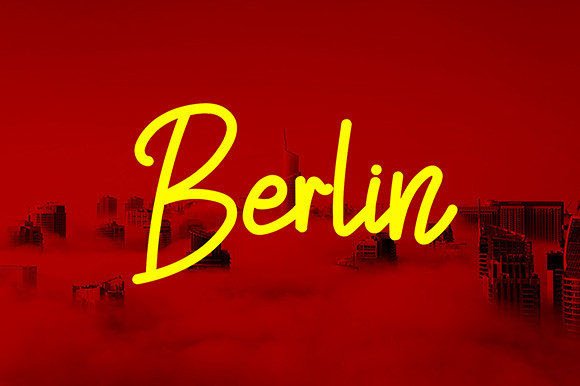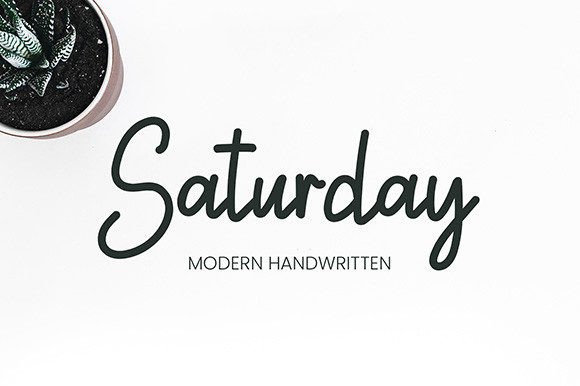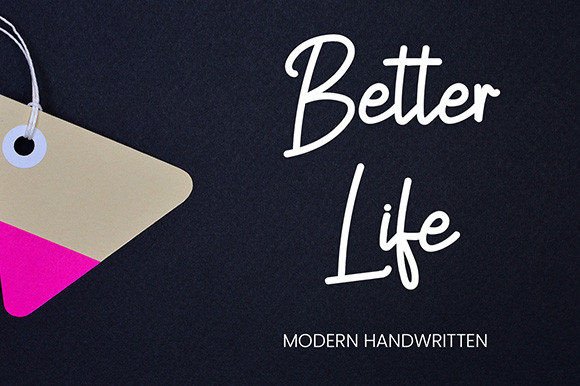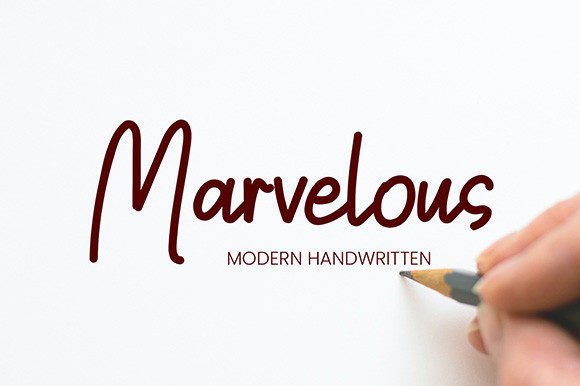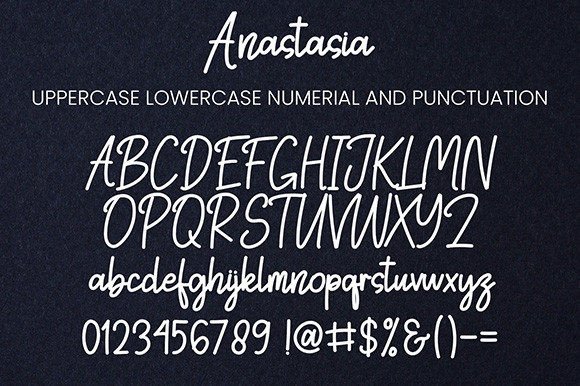
Discover the Timeless Charm of the Anastasia Font
As a designer, there’s nothing quite like the rush of inspiration that comes from stumbling upon the perfect font. It’s that moment when the words on the screen seem to dance with elegance, and your creative vision starts to take shape. For me, that moment came when I discovered the lovely Anastasia Font – a script font that’s as versatile as it is beautiful.
Whether you’re working on a quote, logo, blog header, or poster, the Anastasia Font is the perfect addition to your design toolkit. Its delicate, cursive strokes make it suitable for a wide range of projects, from fashion and clothing to stationery and invitations. What makes the Anastasia Font truly valuable for designers is its ability to add a touch of sophistication and whimsy to any design, making it a must-have for any creative project.
Anastasia Font Key Features
- Font Family: Anastasia is a calligraphy font family designed by Carol Twombly.
- Unique Characteristics: Anastasia features a beautiful, elegant, and cursive design with swashes and connecting strokes, making it suitable for invitations, certificates, and other formal documents.
Anastasia Font Review
Overall, Anastasia Font is a beautiful and elegant font that can elevate any design project. ✨ I love the intricate details and the subtle curves that give it a touch of sophistication. It’s perfect for creating a luxurious or vintage feel in your designs.
- ✨ High-quality rendering: The font looks crisp and clean on both digital and printed materials.
- ✨ Wide range of languages supported: Anastasia Font includes support for multiple languages, making it a great option for international projects.
- ⚠️ Limited font weight options: While you can adjust the font weight, the options are limited, and it may not be suitable for all design projects.
- ⚠️ May not work well in small sizes: Anastasia Font is a decorative font, and it may not be legible in small sizes or when used as a body font.
In conclusion, Anastasia Font is a beautiful and versatile font that can add a touch of elegance to your designs. While it has some limitations, it’s a great option for projects that require a high-end or vintage feel.
Tips for Getting the Most Out of Anastasia Font
For optimal results, use Anastasia Font in conjunction with other design elements, such as bold colors and clean layouts. Experiment with different font sizes and styles to create visual interest. Consider pairing Anastasia Font with other fonts to create a unique and eye-catching typography.
Anastasia Font is ideal for:
- Travel and adventure marketing
- Artistic and creative projects Alternatives to Anastasia Font
- Choose a light blue or pastel-colored background to match the whimsical feel of the invitation.
- Use Anastasia Font to add a touch of elegance with the event details, such as the date, time, and location.
- Combine Anastasia Font with watercolor illustrations or hand-drawn elements to create a playful and dreamy atmosphere.
- Use a mix of uppercase and lowercase letters to add visual interest and create a sense of movement.
- Experiment with different font sizes and colors to create a balanced and harmonious design.
- Consider adding a few strategically-placed watercolor splatters or hand-drawn elements to add texture and depth to the design.
Anastasia Font Creative Project Ideas
Project 1: Whimsical Watercolor Invitation
Create a unique and eye-catching invitation for a special occasion using Anastasia Font.
Project 2: Vintage-Inspired Travel Poster
Create a stunning travel poster that evokes the nostalgia of a bygone era using Anastasia Font.